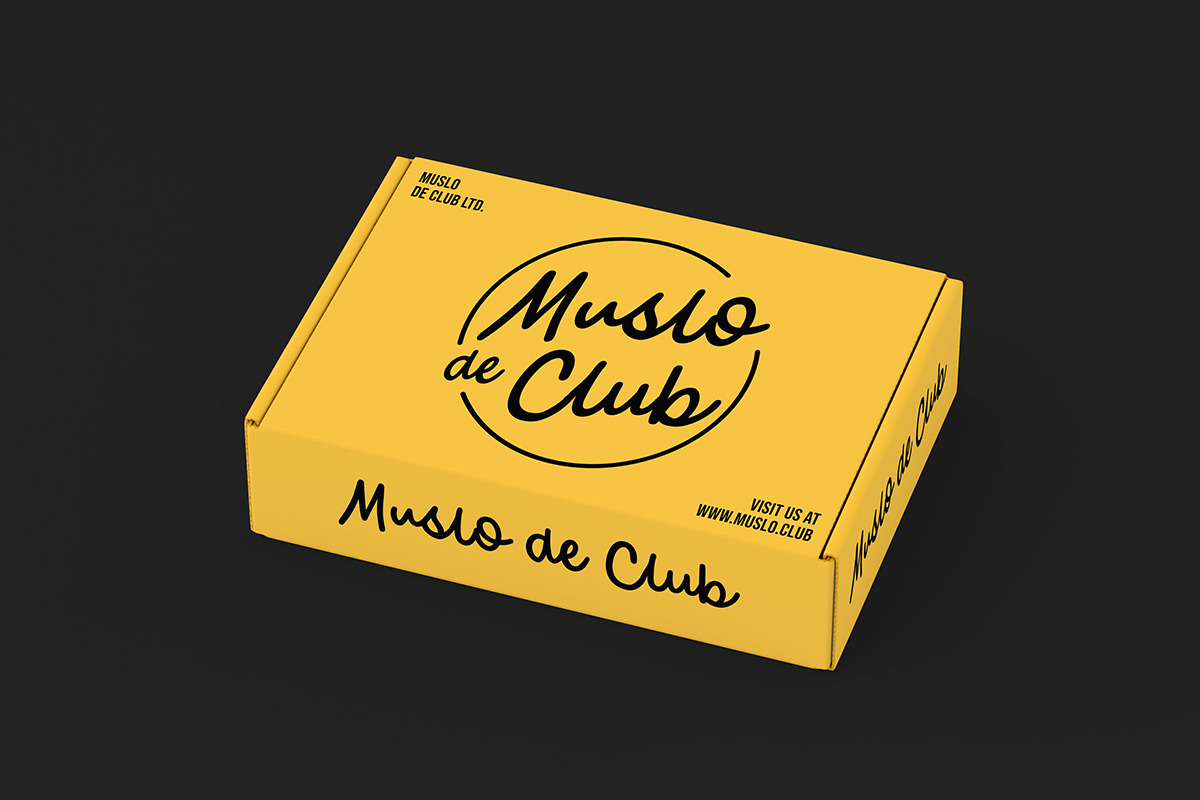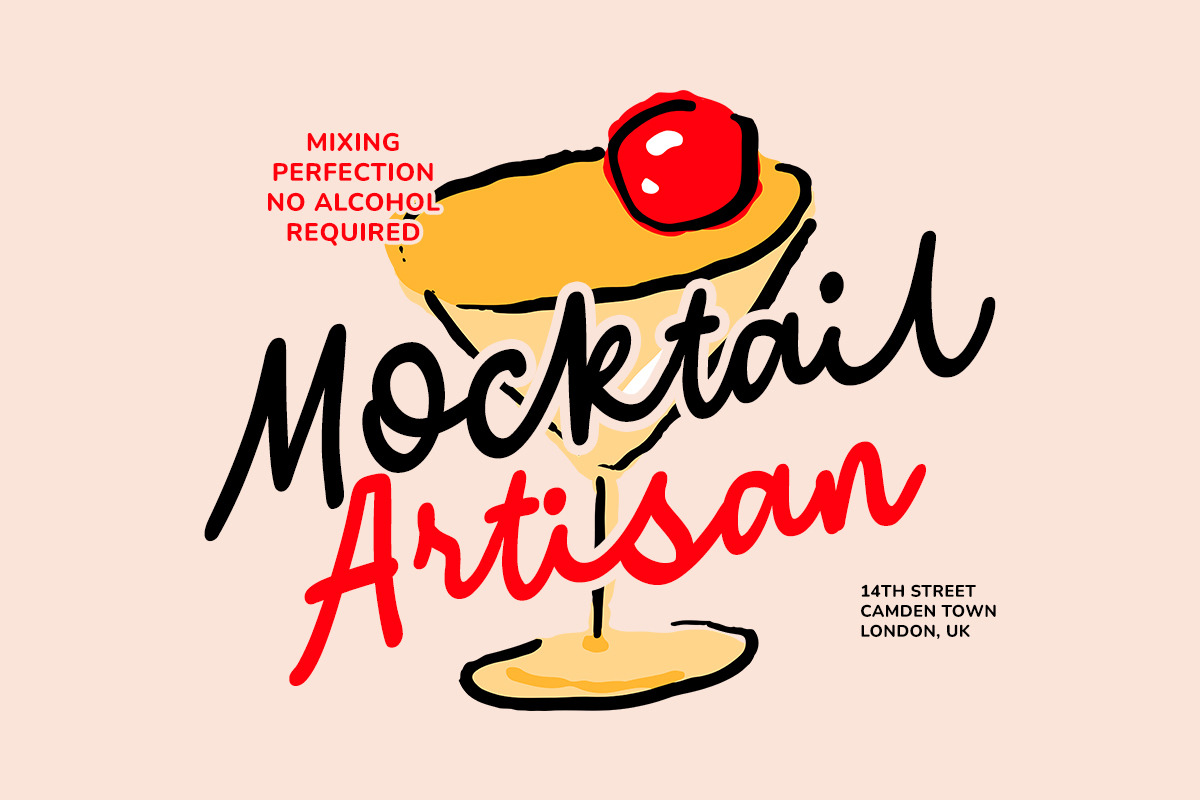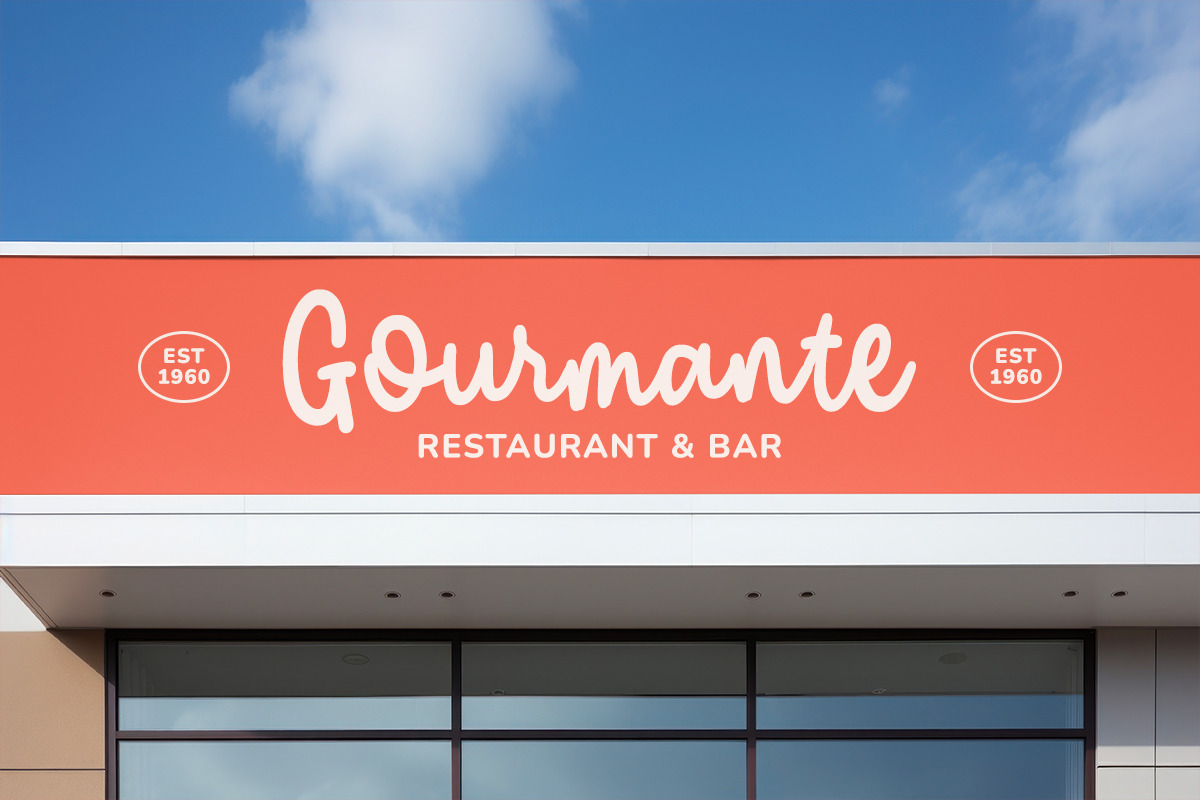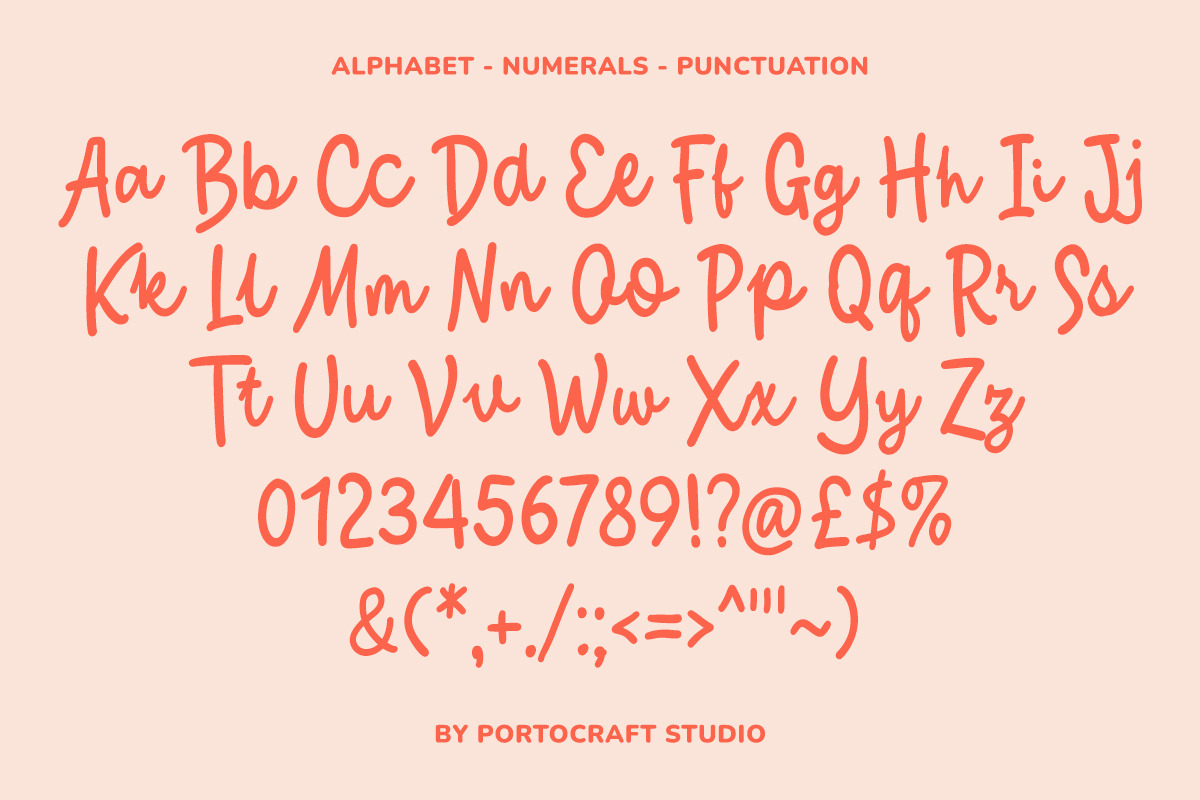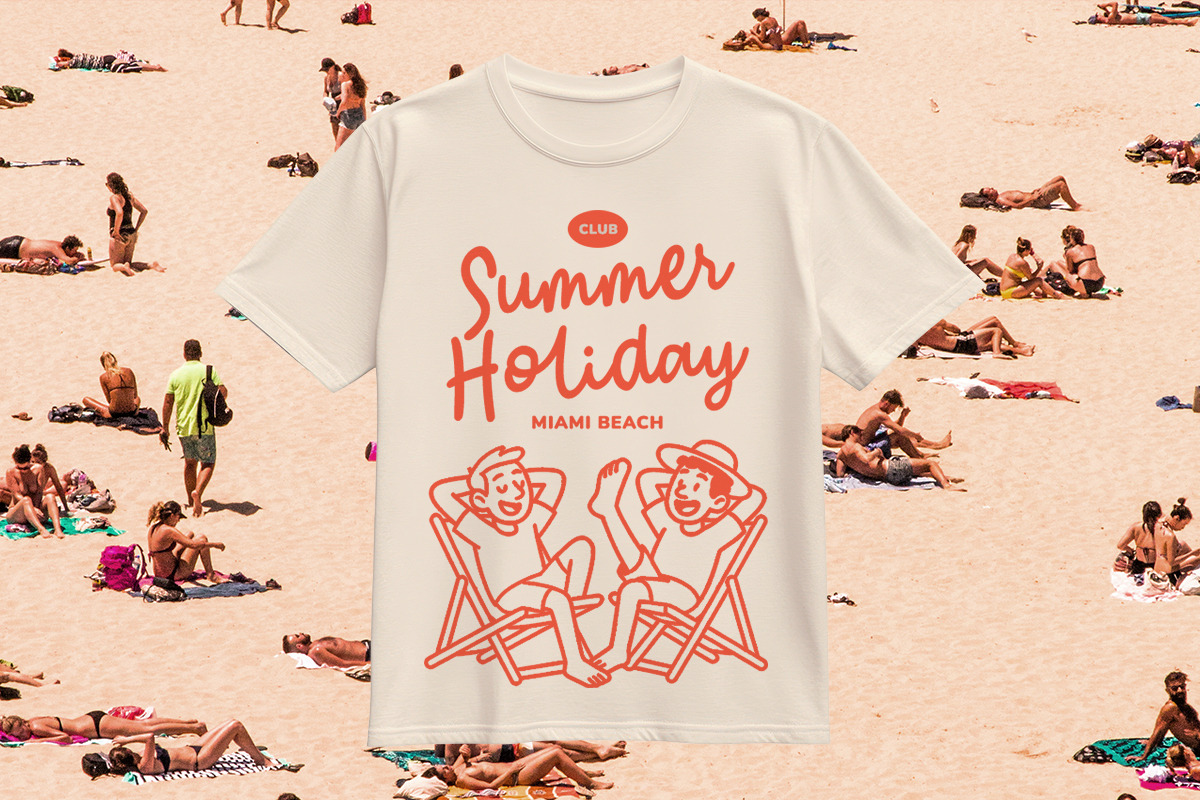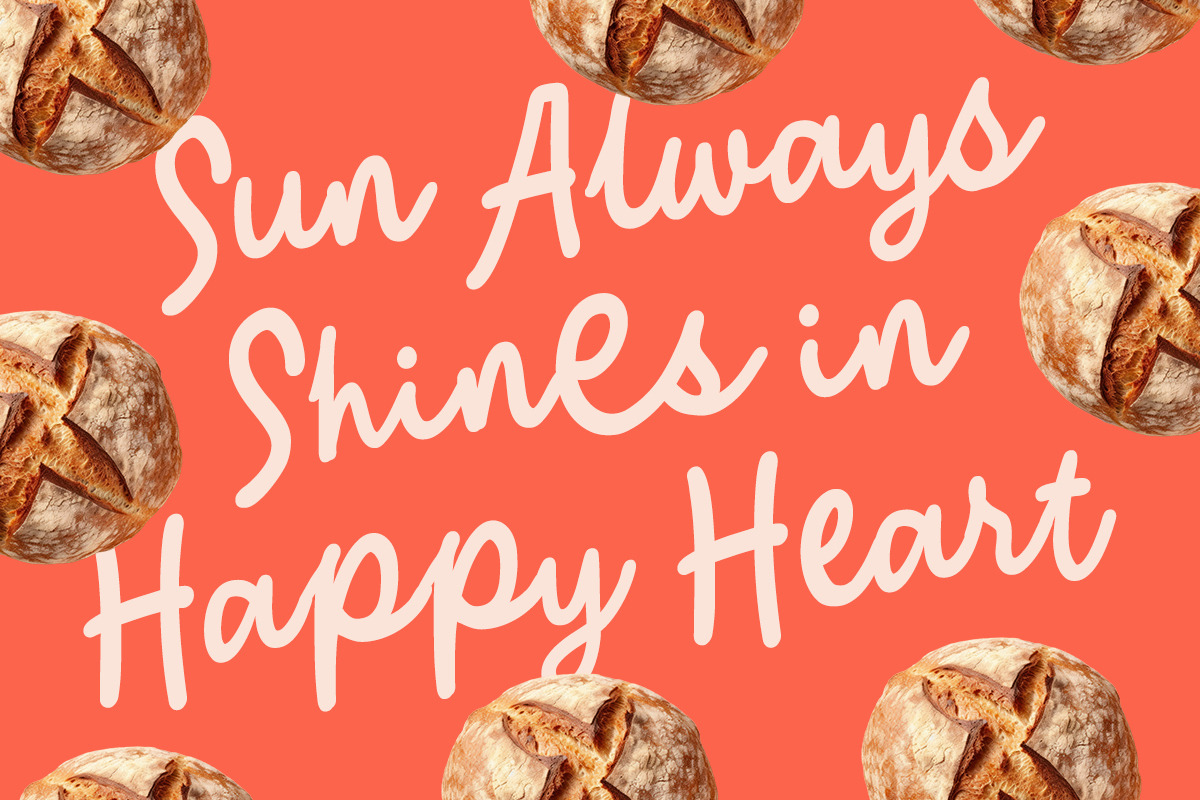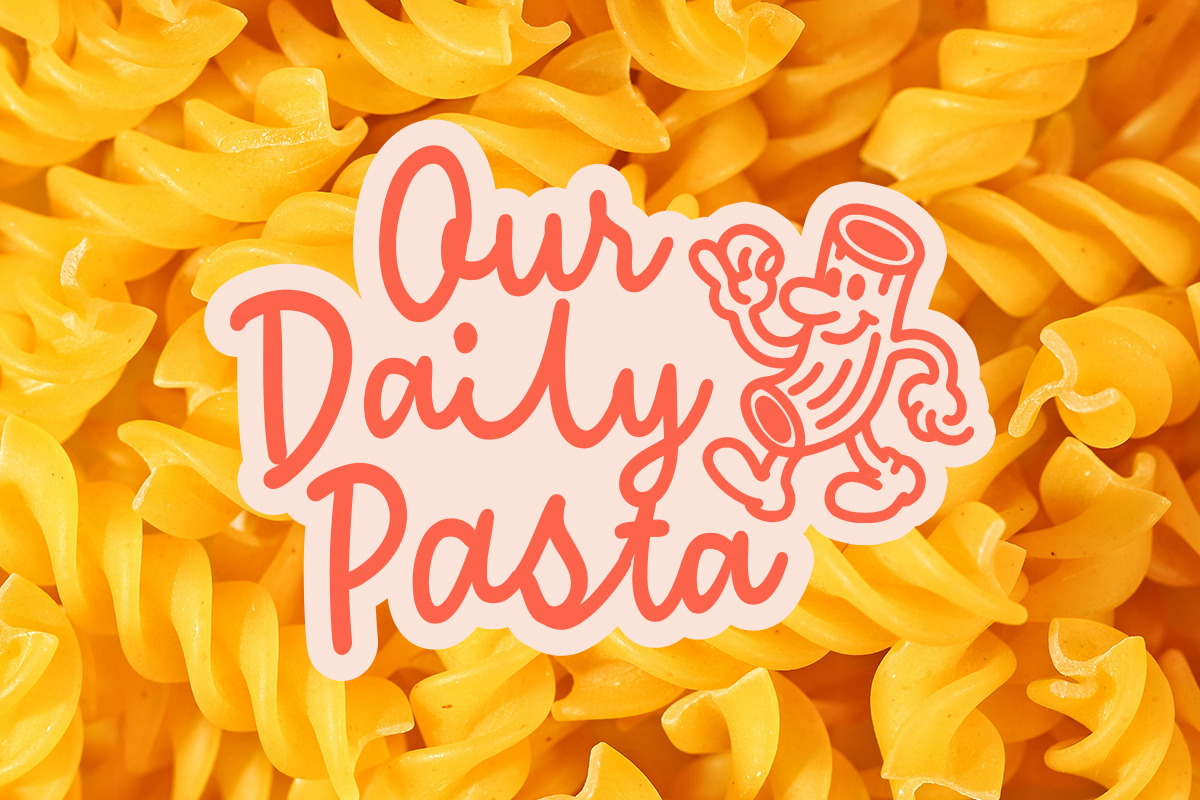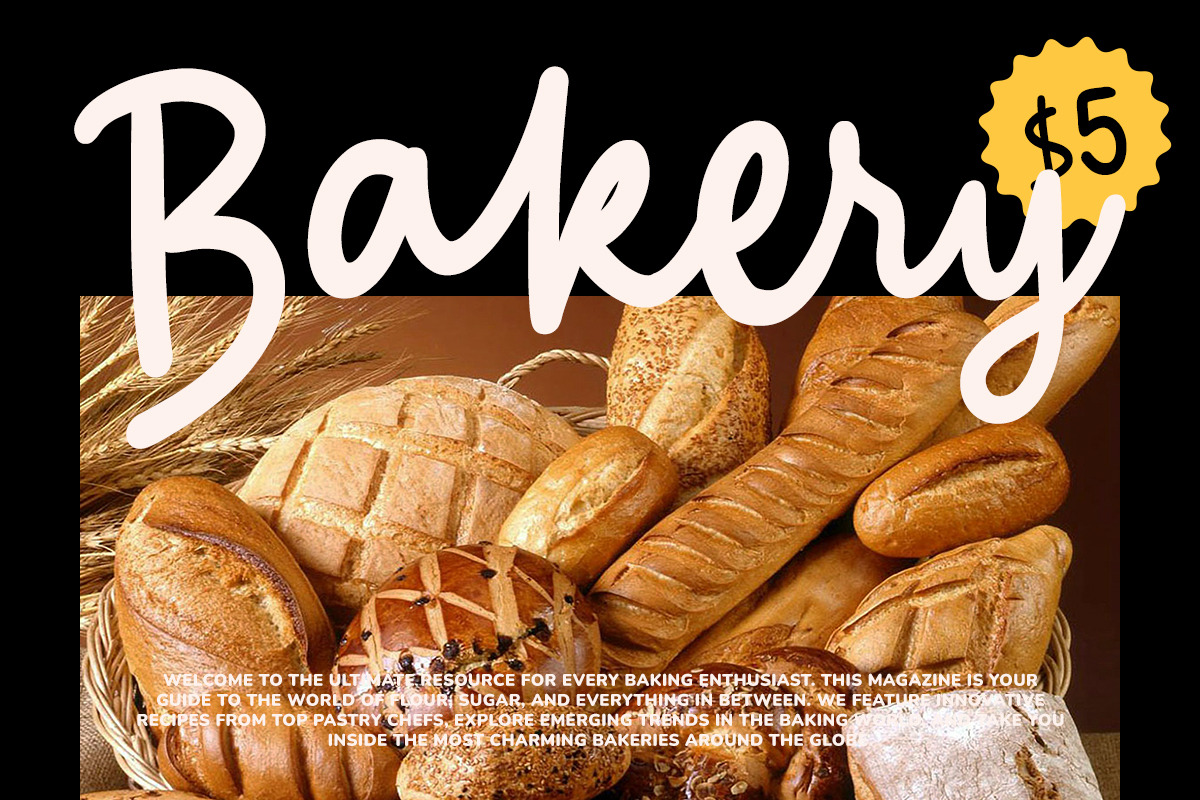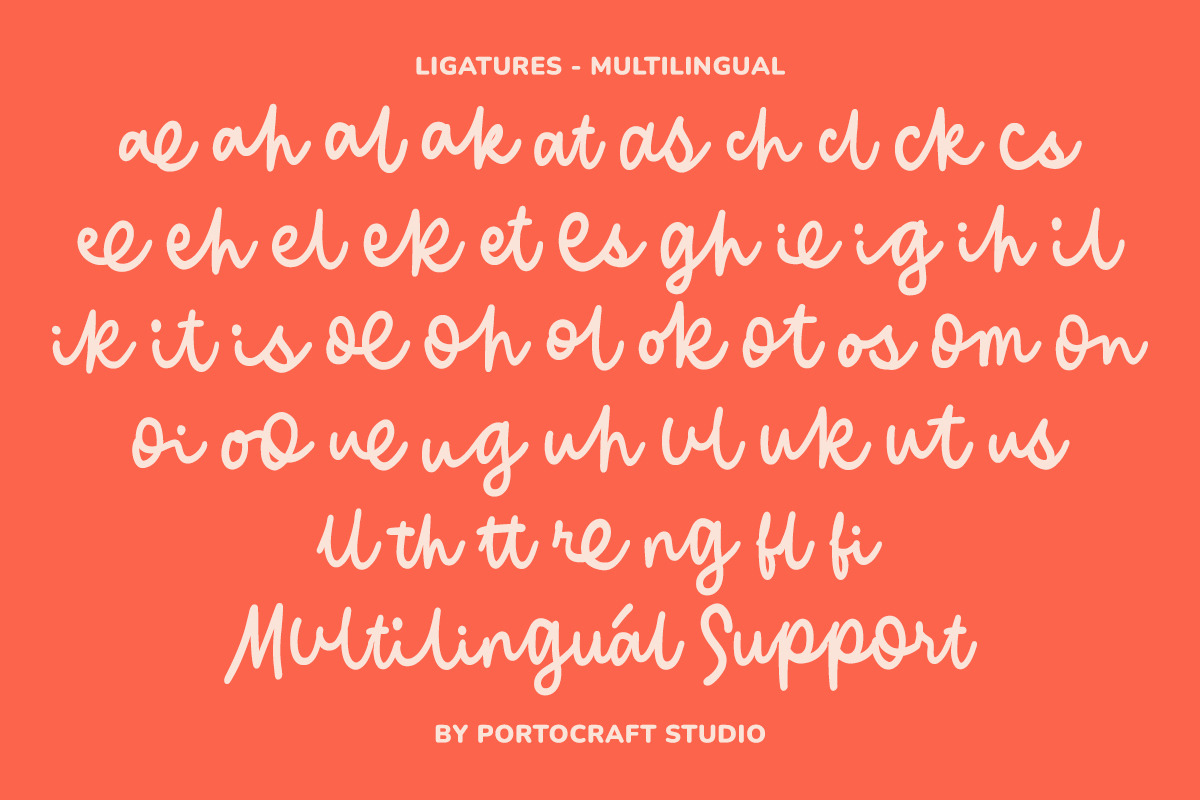
Palate Notes Script
Palate Notes is a playful handwritten font that blends warmth, charm, and personality into every letter. With smooth curves and a natural flow, it feels as inviting as a freshly baked loaf of bread. Perfect for food branding, café menus, packaging, social media posts, invitations, and any project that needs a friendly, artisanal touch.
Whether you’re designing for a bakery, a cozy restaurant, or a fun lifestyle brand, Palate Notes adds a personal, handcrafted vibe that’s full of flavor.
- Unique Letterforms